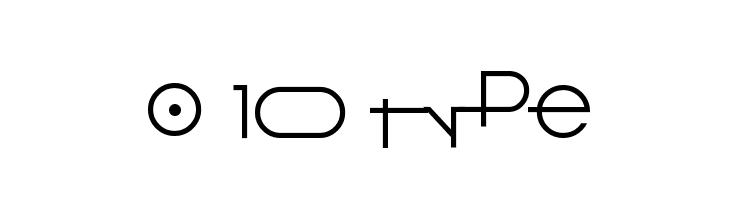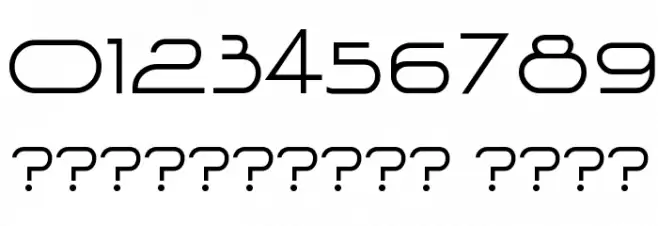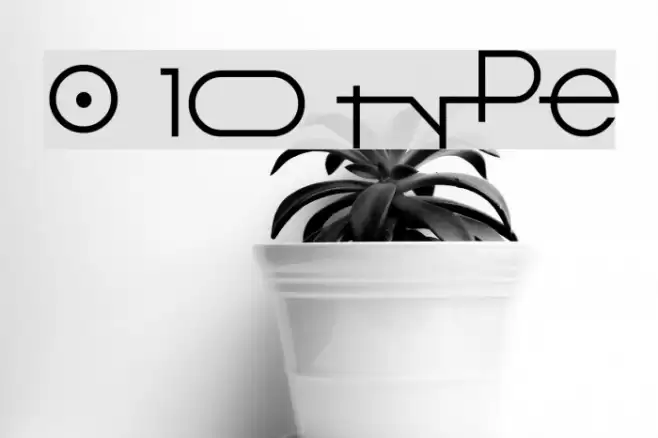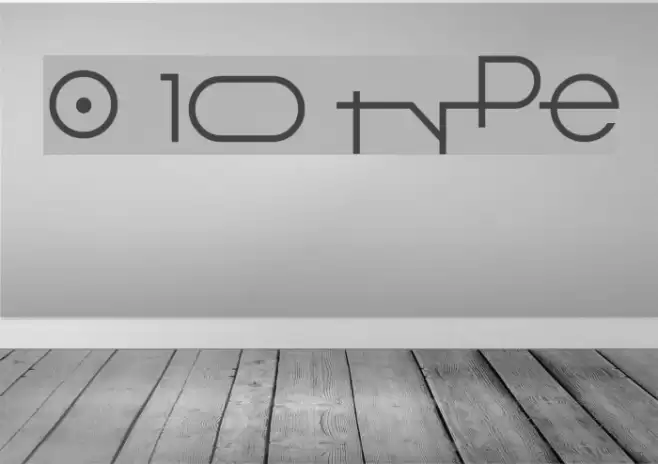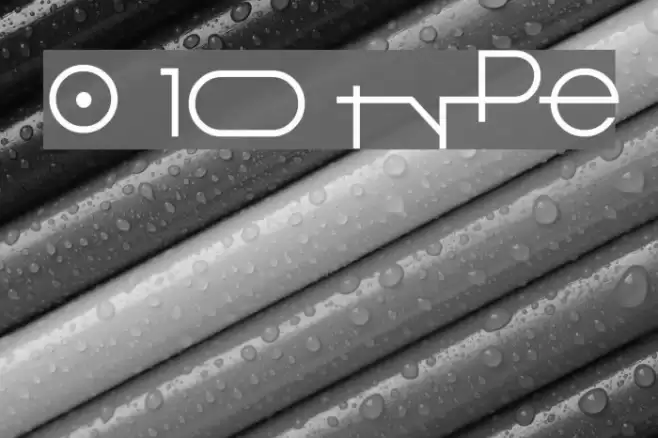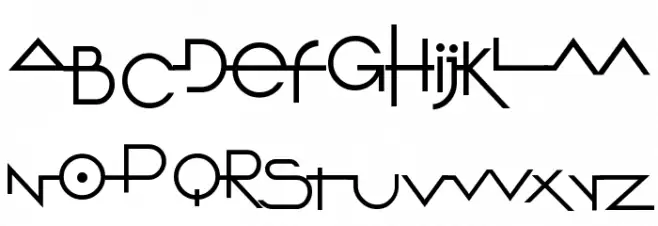
O 10 Type Font
✎ Futuristic
| श्रेणियाँ | Futuristic |
| उपयोग का मामला | Logos, Headlines, Posters |
| सुझाए गए प्रोजेक्ट | Ideal for tech branding, sci-fi movie posters, modern art installations, and innovative product packaging. |